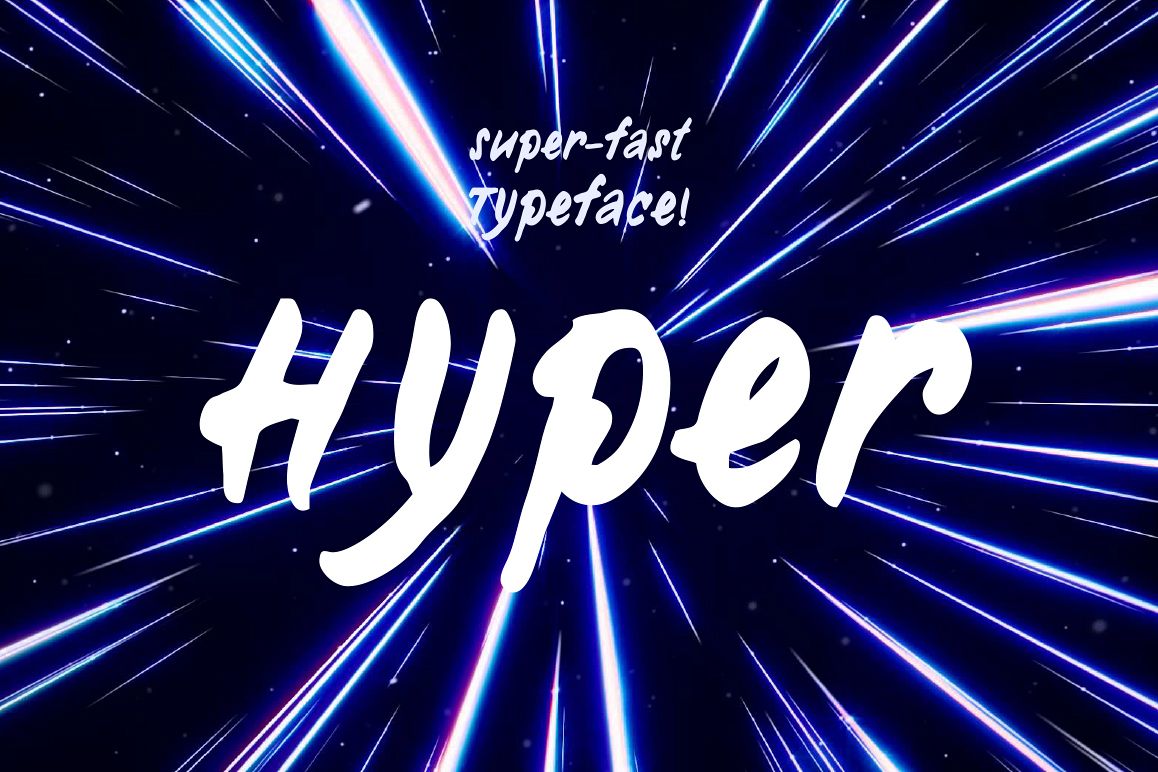
Hyper—handwritten font
Hyper — a supersonic font that accelerates your design!
• 415+ glyphs
• Supports 70+ languages (incl. Cyrillic)*
Hyper was first drawn and thoroughly worked through on paper, and after that it was digitized and turned into a functioning font.
Hyper is a part of Rabbits, a large thematic collection of very emotional handwritten fonts. All fonts from the Rabbits line are united by one common theme — which is the childhood and the ingenuity which goes with it.